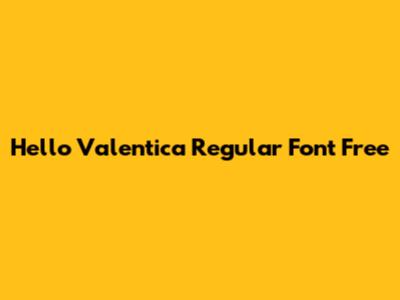
Hello Valentica Regular Font: Free Download!
Hey guys! Are you on the hunt for a font that’s both stylish and versatile? Look no further! Today, we're diving deep into the Hello Valentica Regular Font, and the best part? You can snag it for free! Whether you're a seasoned designer or just starting out, this font is an amazing addition to your toolkit. Let’s explore what makes it so special and how you can make the most of it in your projects.
What is Hello Valentica Regular Font?
So, what exactly is the Hello Valentica Regular Font? Well, imagine a typeface that effortlessly blends modern elegance with a touch of playfulness. That's Valentica! It's a font designed to be incredibly readable while still maintaining a unique character that sets it apart from more generic fonts. The 'Regular' weight is particularly versatile, making it suitable for a wide array of applications, from body text to headings.
One of the key characteristics of Hello Valentica Regular is its clean lines and balanced letterforms. Each character is carefully crafted to ensure optimal readability, whether you're viewing it on a screen or in print. The font also includes a comprehensive set of glyphs, meaning it supports a wide range of languages and includes special characters that can add extra flair to your designs. In short, Hello Valentica Regular is designed with both aesthetics and practicality in mind, ensuring it’s a font you can rely on for all sorts of projects. Whether you're working on branding materials, website designs, or even personal projects like invitations and cards, this font has you covered. Its versatility makes it a true workhorse in any designer's toolkit. And because it's available for free, it’s an excellent option for those just starting out who want to experiment with different typefaces without breaking the bank. Trust me, once you start using Hello Valentica Regular, you’ll wonder how you ever managed without it!
Why Choose Hello Valentica Regular Font?
Okay, so why should you specifically choose the Hello Valentica Regular Font over the thousands of other fonts out there? Great question! Here's the lowdown:
• Versatility: This font is a chameleon! Need something for a professional presentation? Check. How about a fun, quirky invitation? Double-check. It adapts beautifully to various design needs.
• Readability: Let's be real, some fonts look gorgeous but are a nightmare to read. Hello Valentica nails both aesthetics and readability. Your message will be clear and stylish.
• Modern Aesthetic: The font has a contemporary feel that keeps your designs looking fresh and up-to-date. It’s perfect for projects that need a modern touch.
• Easy to Pair: Hello Valentica Regular plays well with others! It's easy to pair with different fonts for headings, body text, or accent elements, giving you more design flexibility.
In essence, choosing Hello Valentica Regular is about getting a reliable, versatile, and visually appealing font without spending a dime. It’s a no-brainer for both seasoned designers and newbies alike. With its clean lines, balanced letterforms, and extensive glyph support, you’re getting a font that’s designed to perform well in any situation. Plus, the fact that it's free means you can experiment without any financial risk. So go ahead, give it a try and see how Hello Valentica Regular can elevate your designs. You won’t be disappointed!